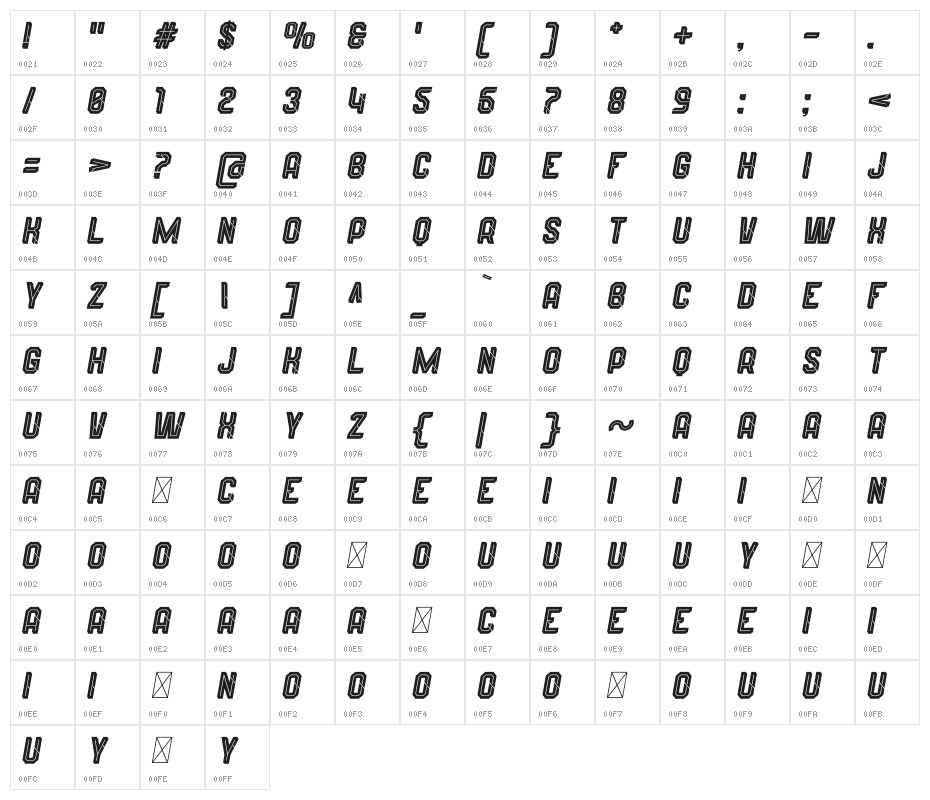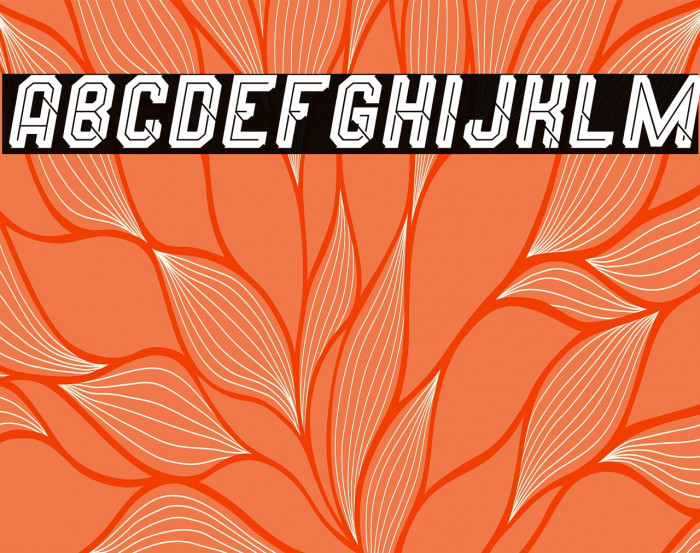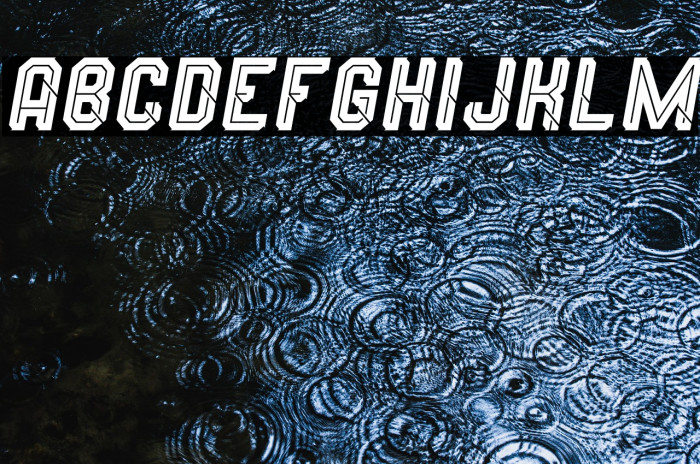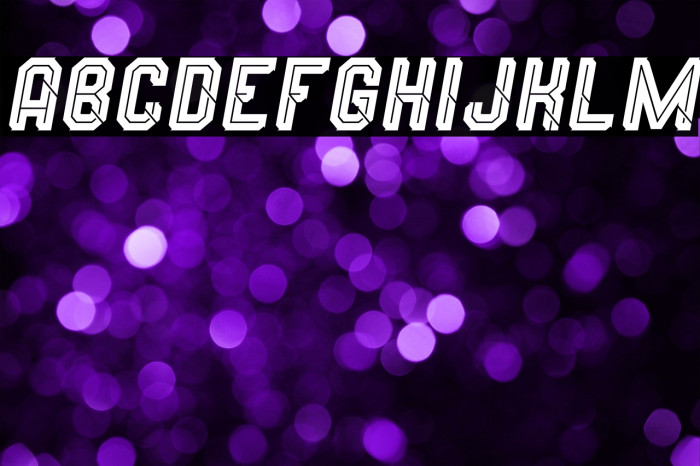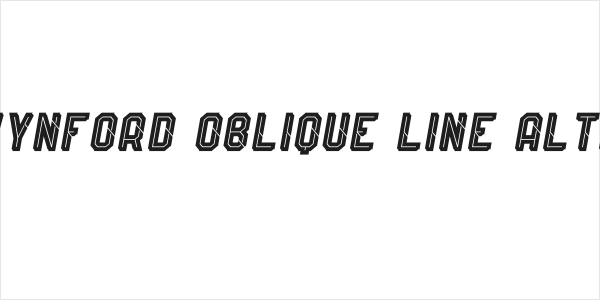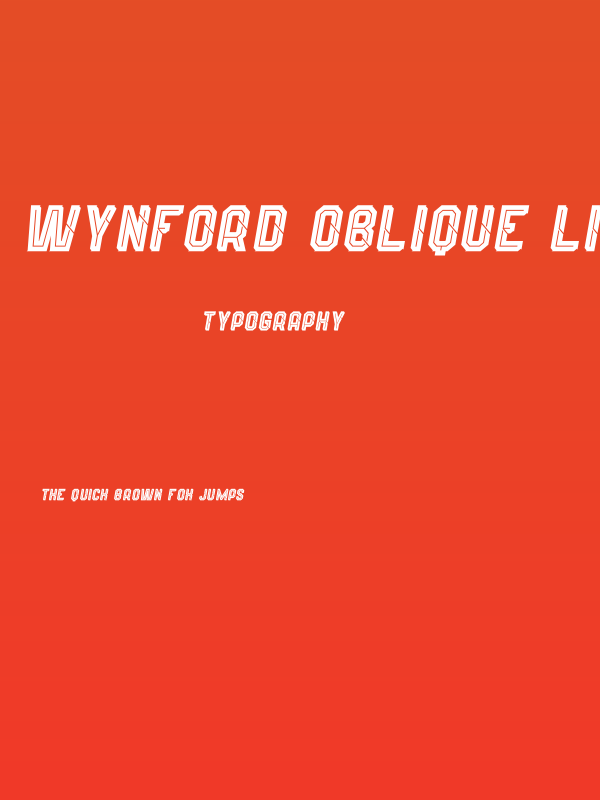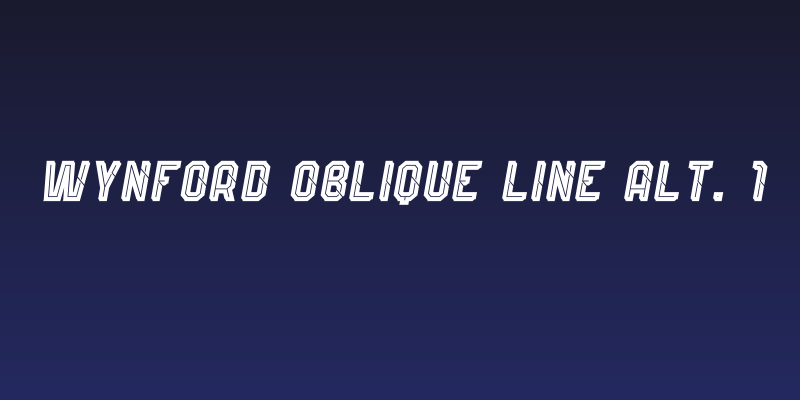
Wynford Oblique Line Alt. 1 Font
Wynford Oblique Line Alt. 1 Description
This font features a bold and dynamic design with an oblique orientation, giving it a sense of motion and energy. The characters are outlined with a double-line effect, creating a layered and dimensional appearance. The geometric structure of the letters is consistent, with sharp angles and clean lines that contribute to its modern and futuristic style. The font maintains a uniform weight throughout, ensuring readability while adding a unique visual interest. Its distinct style makes it suitable for projects that require a strong and impactful typographic presence.
Proposed ProjectsIdeal for branding, posters, sports team logos, and futuristic designs.